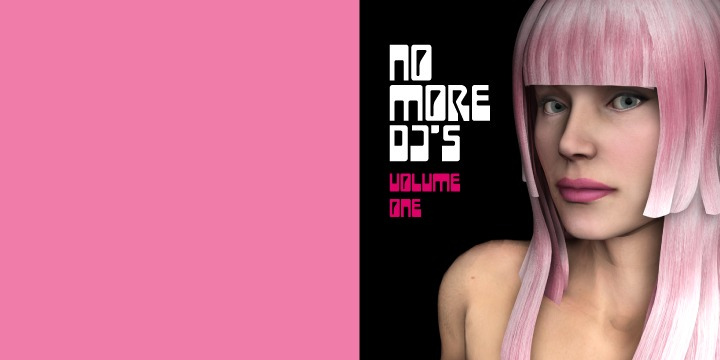
LaserDisco Font
LaserDisco Font is perfect for retro nightclub branding, 80s-themed party promotions, neon arcade signage, vintage synthwave album covers, roller skating rink marketing, retro gaming interfaces, nostalgic dance event materials, and cyberpunk entertainment venues where electric energy and retro-futuristic style are emphasized.
What makes LaserDisco Font so exciting is its electrifying ability to capture the pulsating energy of disco-era nightlife through luminous letterforms that embody the dazzling spectacle and electric atmosphere of classic dance floors while maintaining excellent readability under neon lights. The radiant character design reflects the infectious rhythm and futuristic glamour that defined the golden age of disco culture.
The LaserDisco Font family includes light, regular, bold, and neon variants, with laser-inspired decorative elements and disco-ball ornaments that provide comprehensive tools for creating authentic retro-futuristic branding and electric dance culture design systems.
This dazzling typeface represents the pinnacle of disco typography, combining retro dance heritage with contemporary entertainment marketing requirements. The LaserDisco Font Free Download gives entertainment venues access to typography that communicates electric energy and nostalgic dance culture appeal.
The font's illuminated character effects and rhythmic proportions create immediate associations with disco balls and laser light shows. Each letterform has been designed to evoke the excitement and futuristic glamour that defined legendary disco venues and electronic dance experiences.
LaserDisco Font excels in creating memorable brand identities that ignite dance floor excitement and transport audiences back to disco's golden era. The typeface's electric character makes it ideal for nightclubs, event promoters, and entertainment venues targeting audiences seeking authentic retro dance experiences.
From synthwave concerts to 80s theme parties, this font brings disco credibility that appeals to audiences craving nostalgic dance culture and electric entertainment experiences. The versatile design maintains its neon character across both traditional nightlife applications and modern digital dance music platforms.